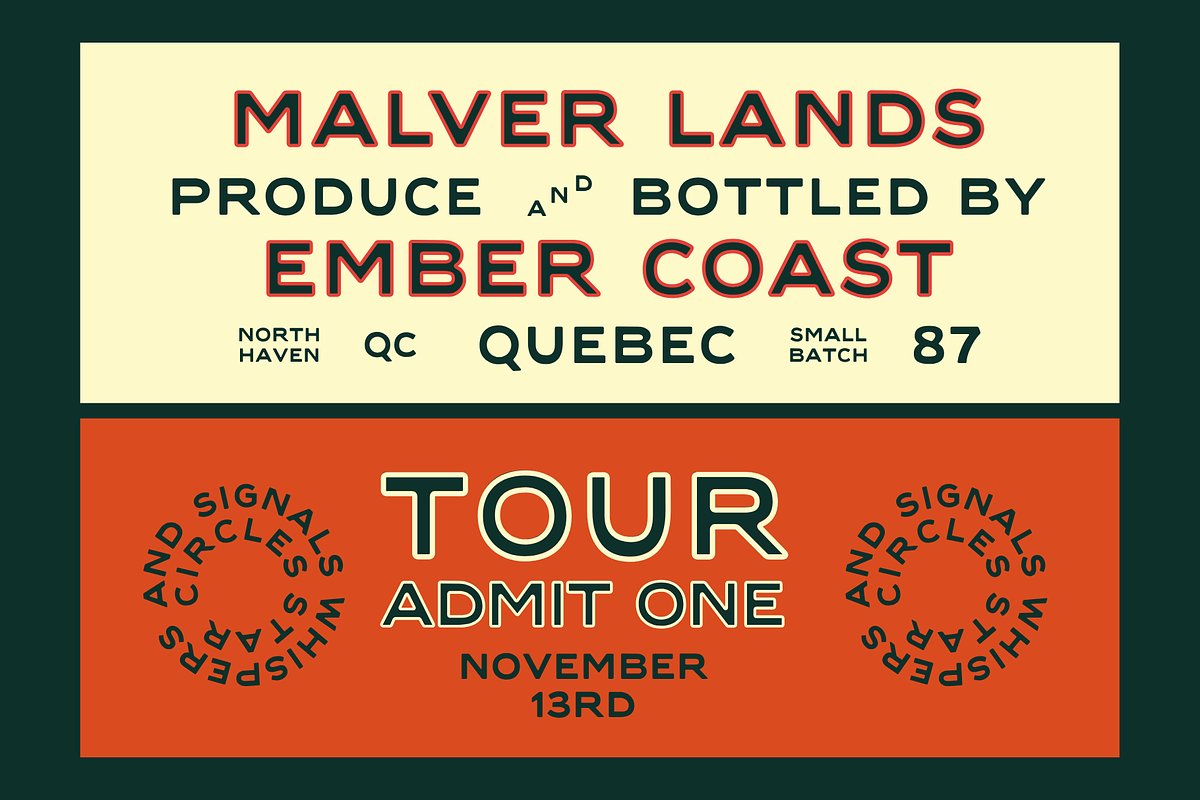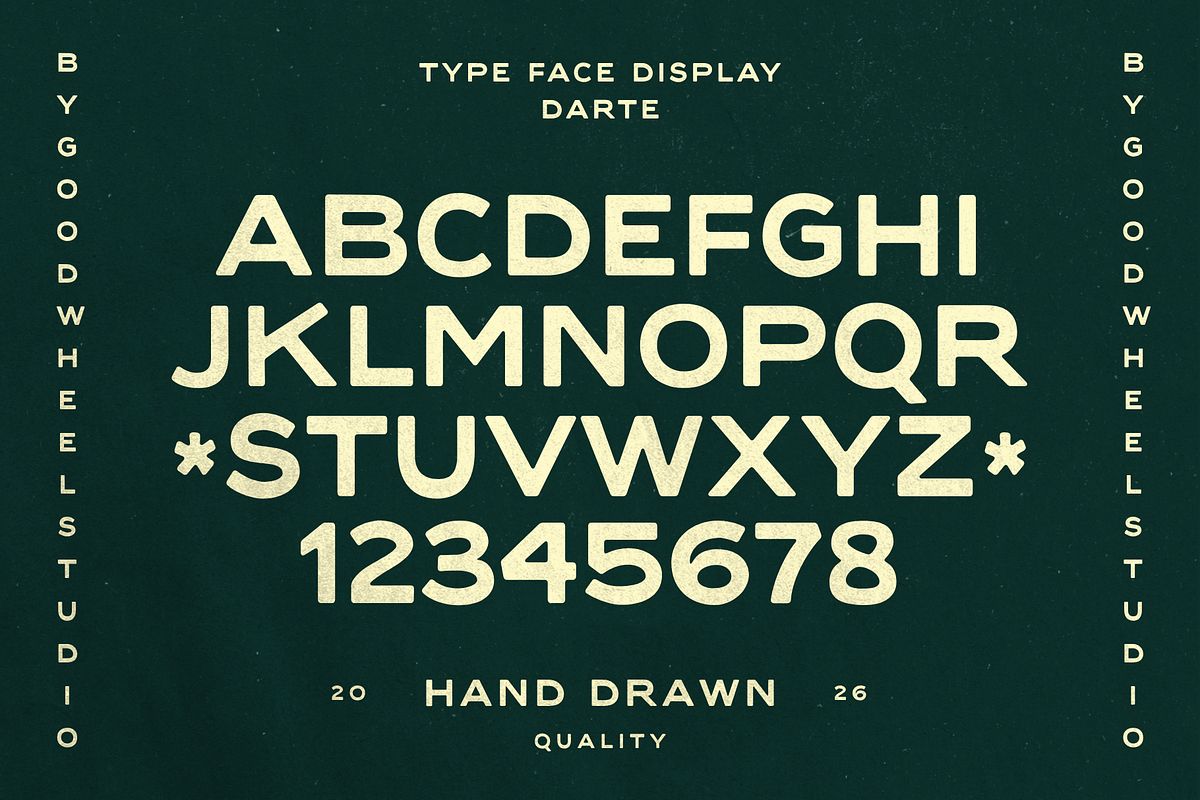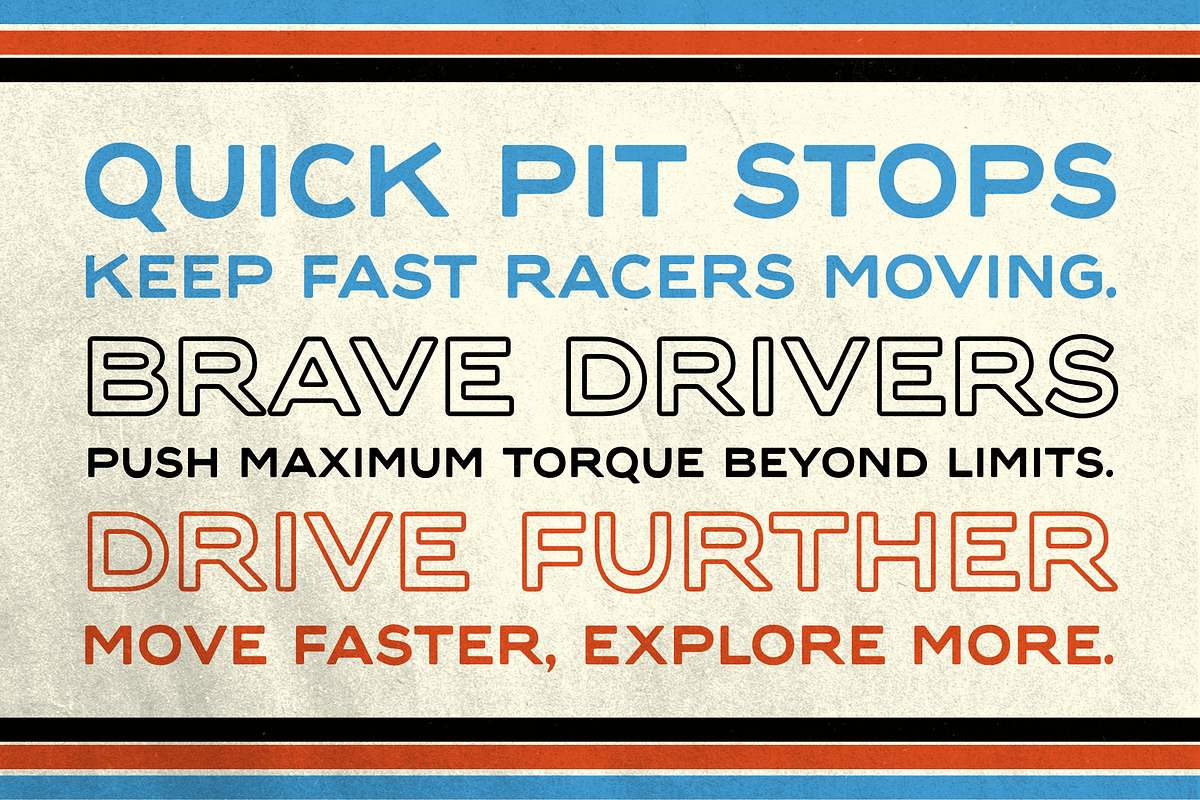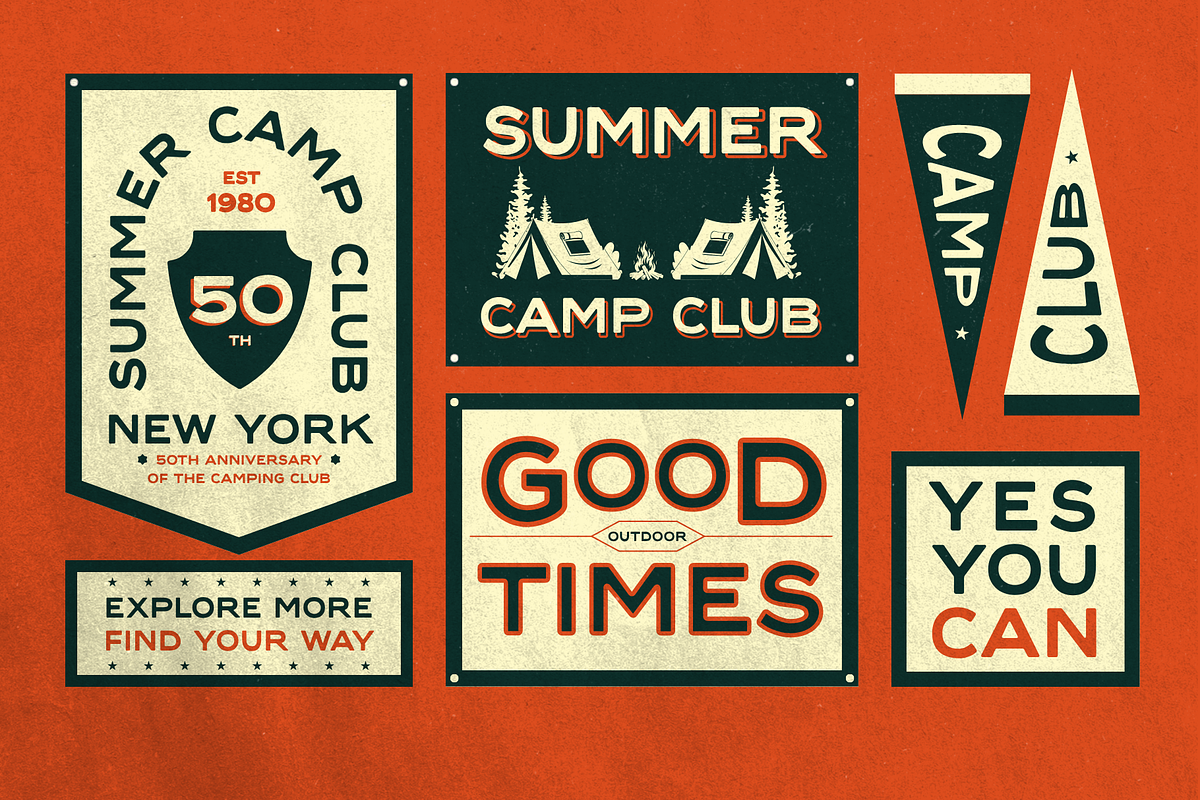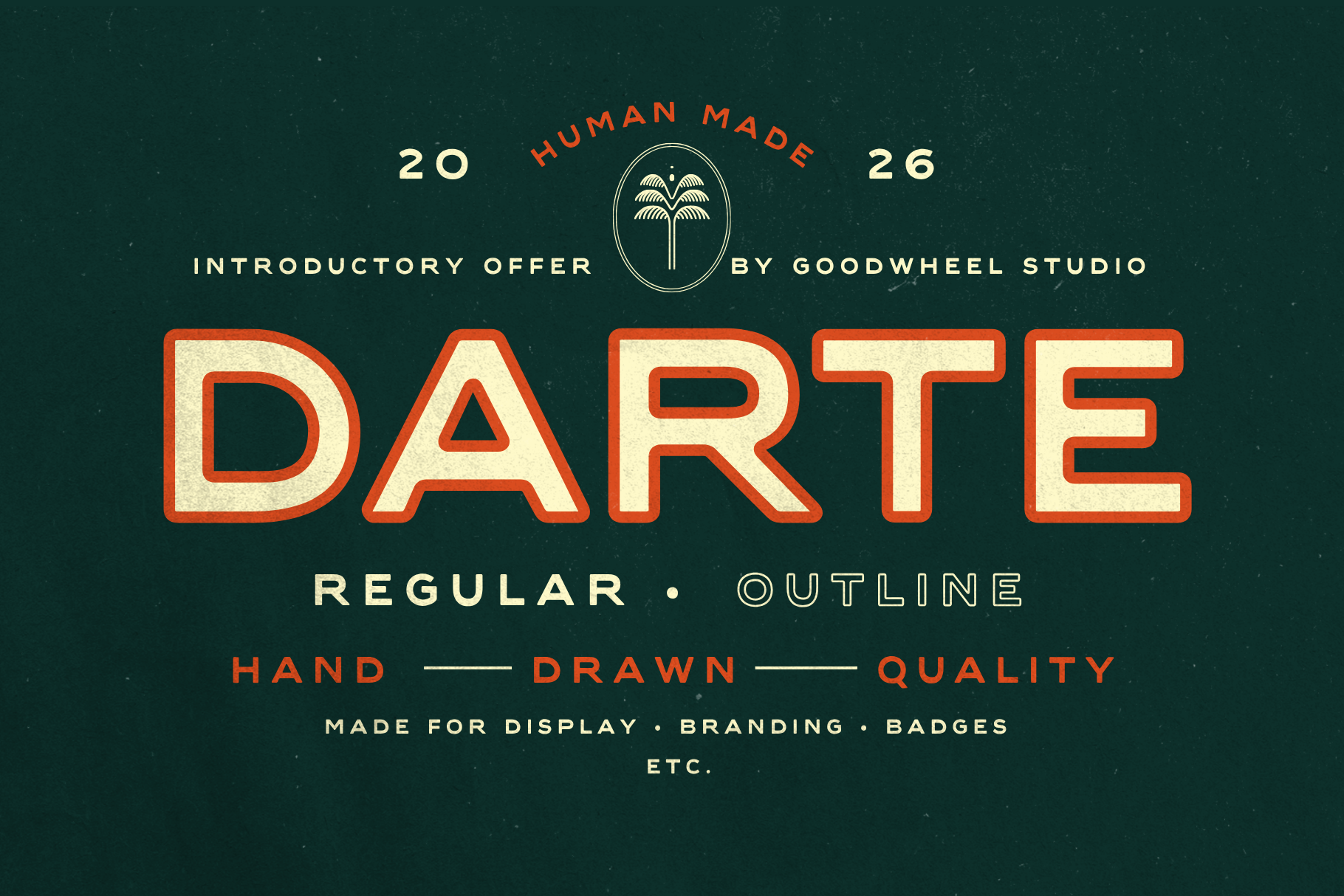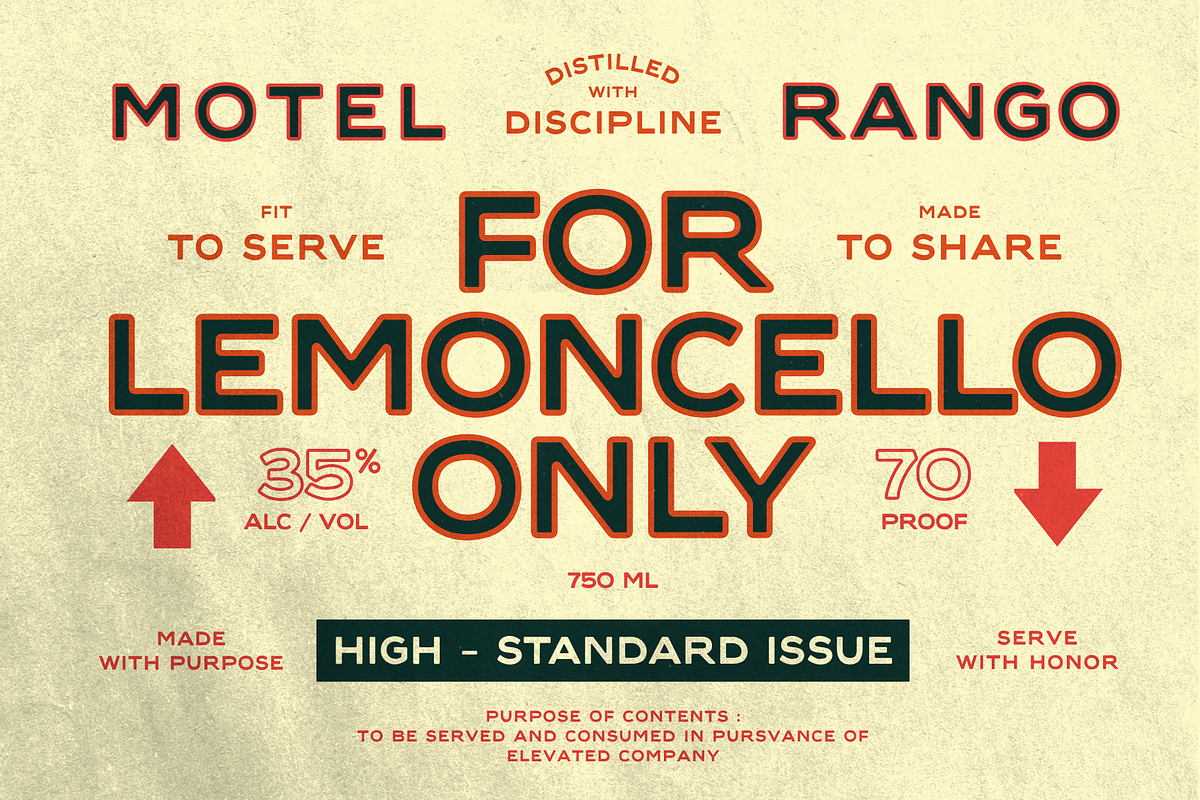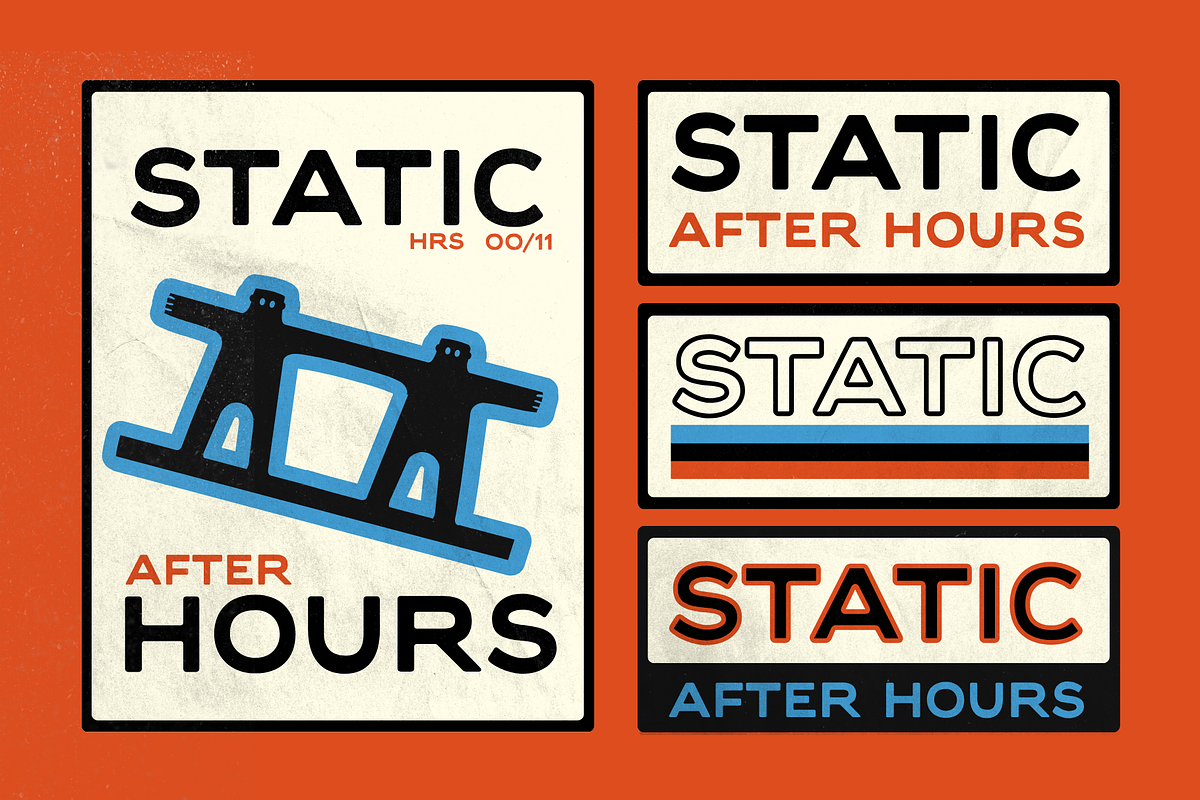
Darte | Handdrawn Typeface
Darte is a bold vintage display typeface inspired by classic packaging, handcrafted signage, and retro branding. Designed with strong geometric shapes and smooth curves, it delivers a distinctive character that feels timeless yet modern. Darte is perfect for logos, packaging, posters, labels, merchandise, editorial headlines, and branding projects that need a memorable visual impact. The family includes 2 styles: Regular and Outline, offering flexibility for both solid and layered typography compositions. With uppercase letters, numbers, punctuation, and multilingual support, Darte is an excellent choice for designers seeking a versatile display font with authentic vintage charm and personality.